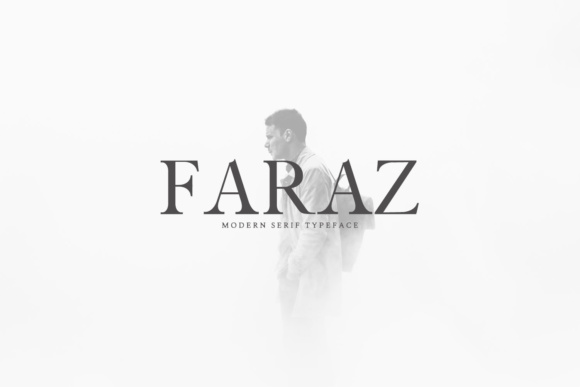
Journey into the realm of sophistication and timeless elegance with Faraz, a serif font family crafted to evoke a sense of refinement and luxury in your designs. Created by the creative minds at Creative Tacos, Faraz exudes an aura of grace and poise that will elevate your projects to new heights.
With three distinct weights—Light, Regular, and Bold—Faraz offers a versatile range of options to cater to your diverse creative needs. Whether you're crafting captivating headlines, designing eye-catching posters, or developing striking branding materials, Faraz's versatility knows no bounds.
Immerse yourself in Faraz's intricate details and refined curves, meticulously crafted to add a touch of sophistication to your packaging designs, presentations, and logos. Allow Faraz's eloquence to elevate your quotes and titles, transforming them into captivating expressions of artistry.
Unleash your creativity and explore the endless possibilities with Faraz. Let its timeless beauty lend an air of elegance to your creative endeavors, captivating your audience with its undeniable charm. Embrace the allure of Faraz and embark on a journey of design excellence.